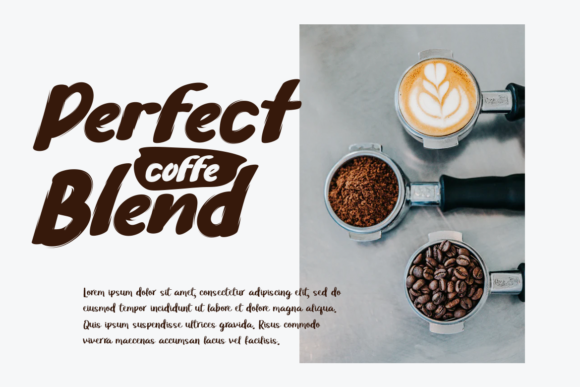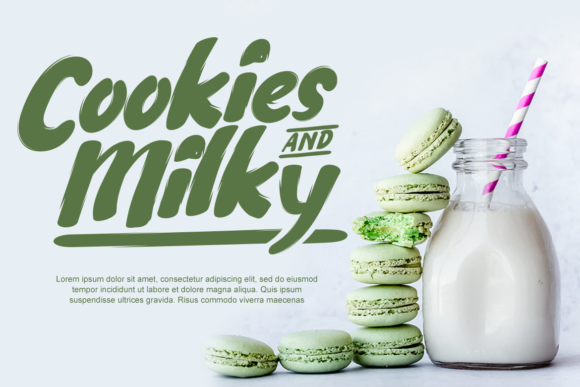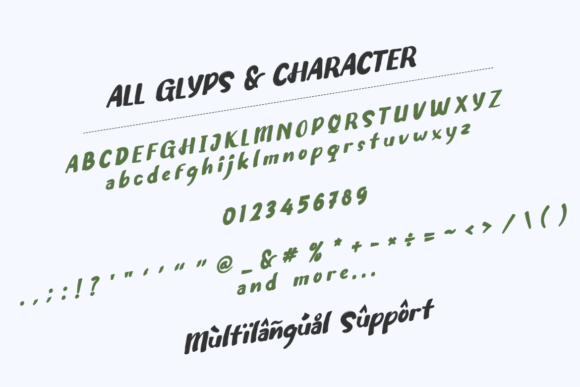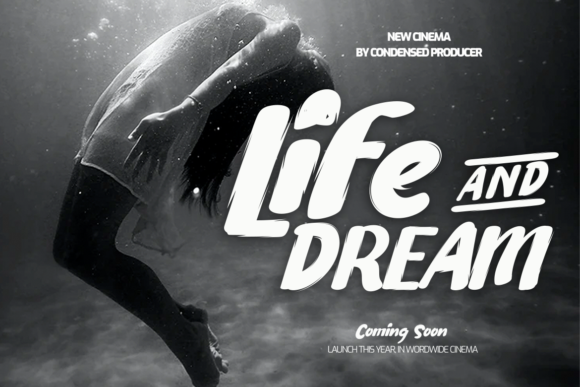
Garmila Font
About Garmila Font
Garmila is a modern handwritten font. This amazing font will look outstanding in any context, whether it’s being used on busy backgrounds or as a standalone headline!